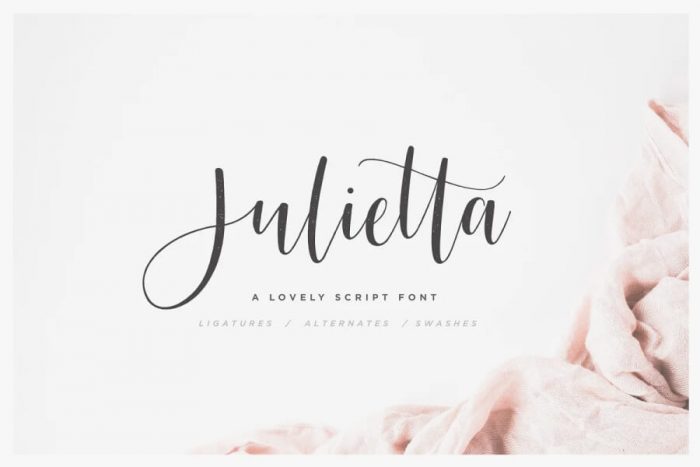
Julietta Script Font
Introducing the lovely new Julietta Script! It was built with OpenType features and includes beginning and ending swashes, numbers, punctuation, alternates, ligatures and it also supports other languages.